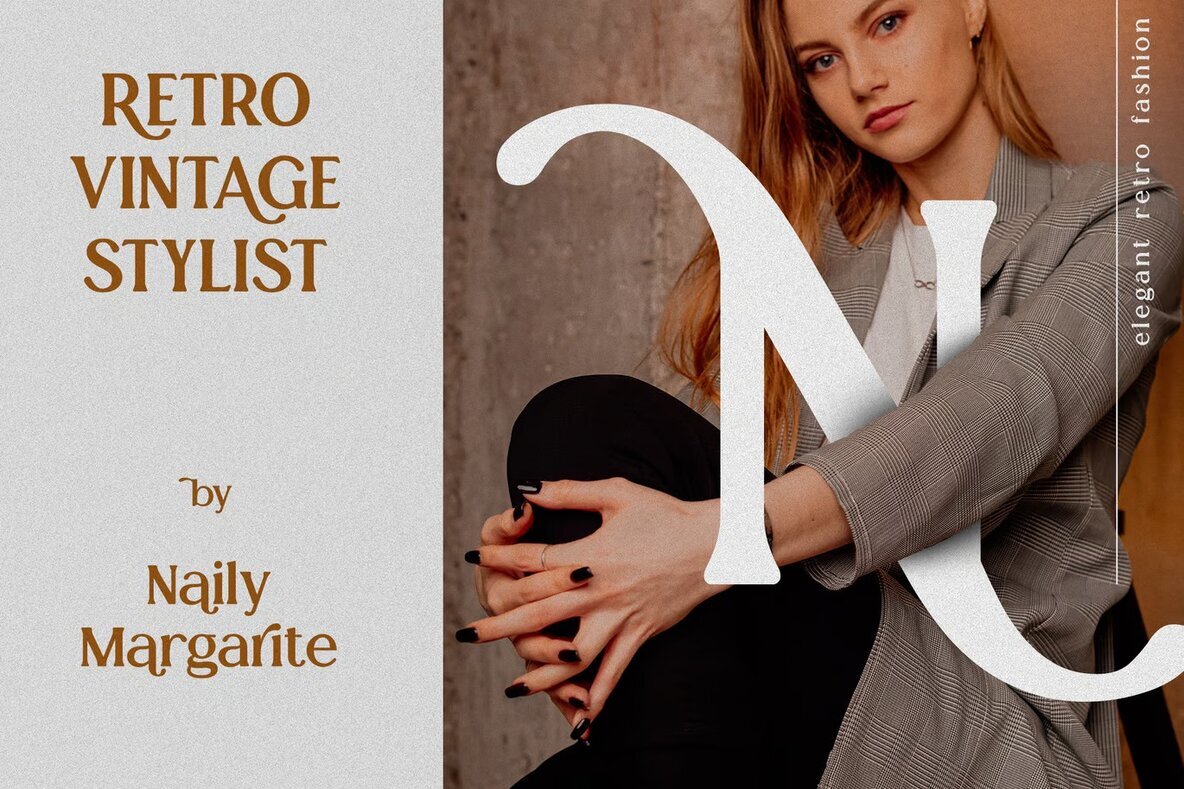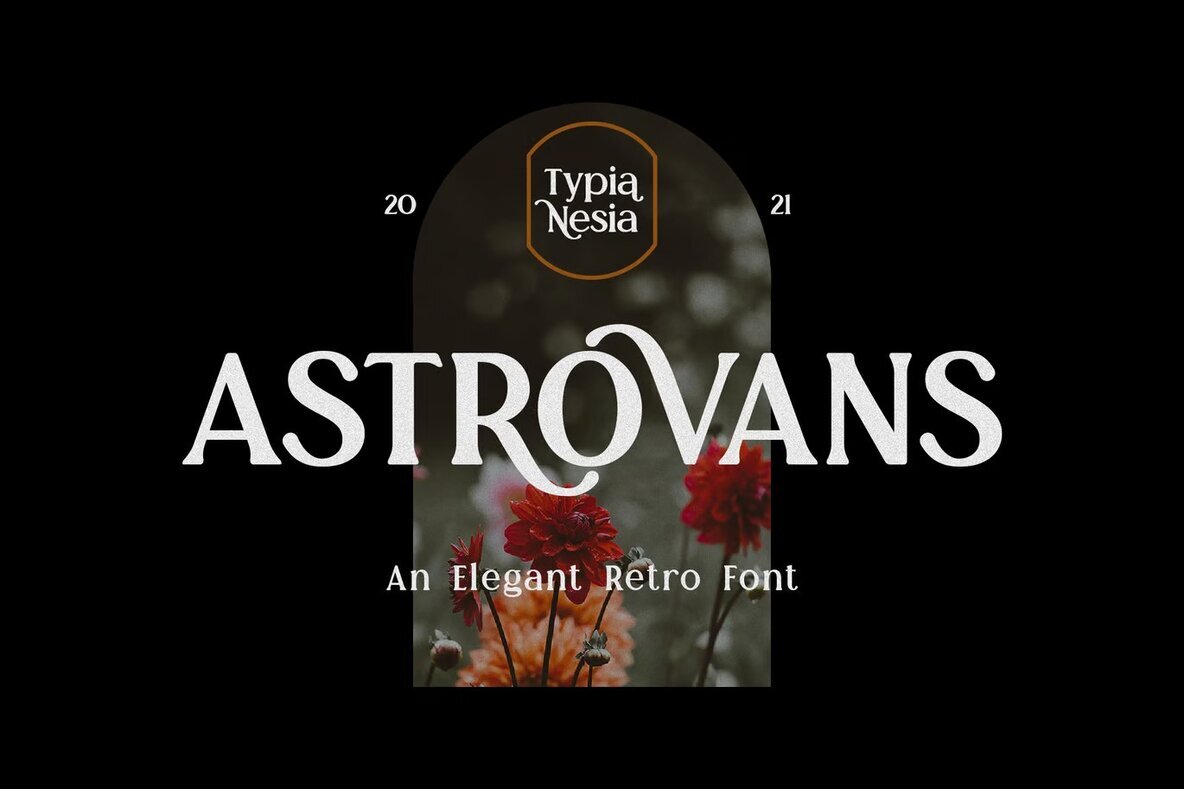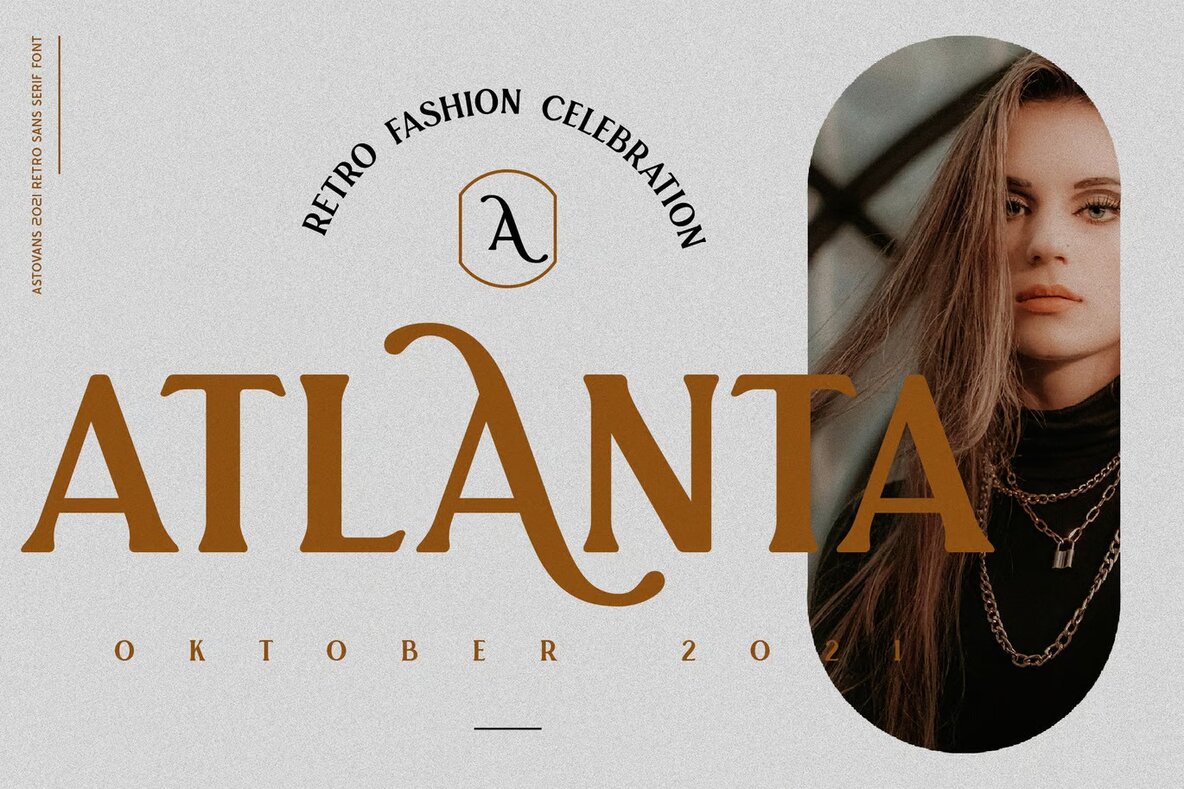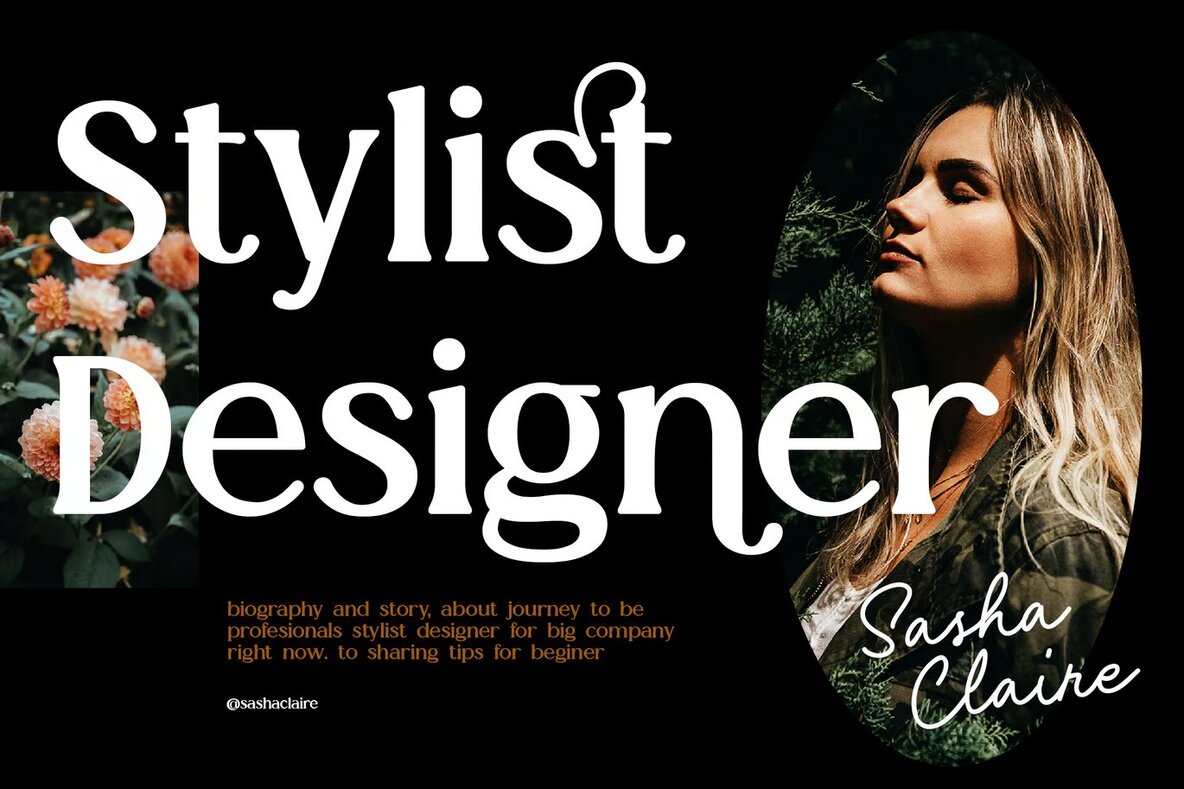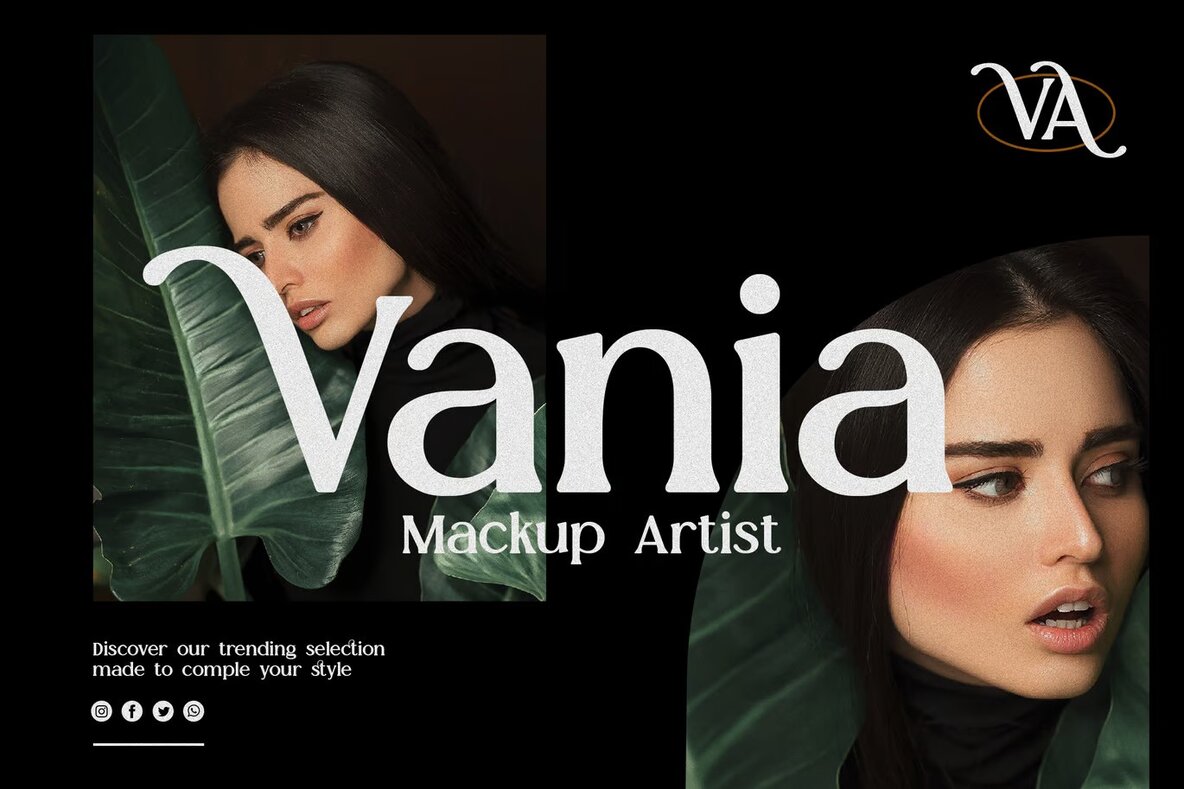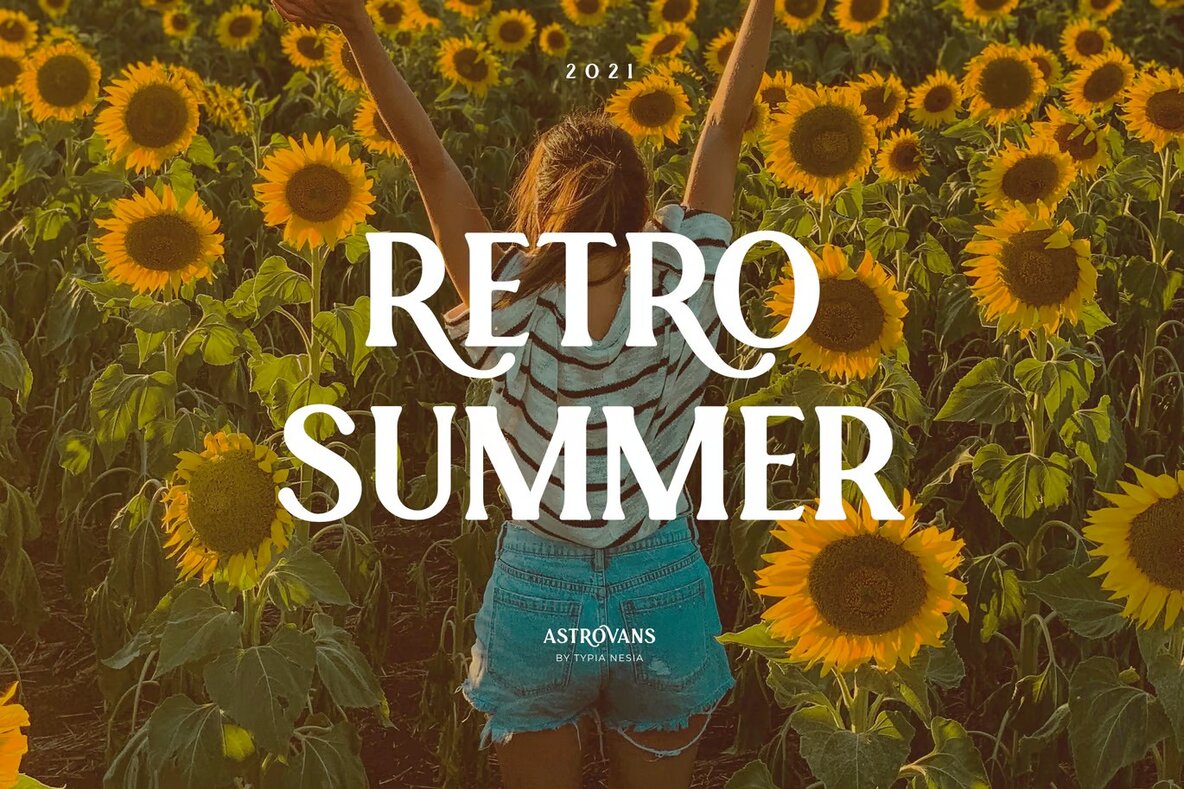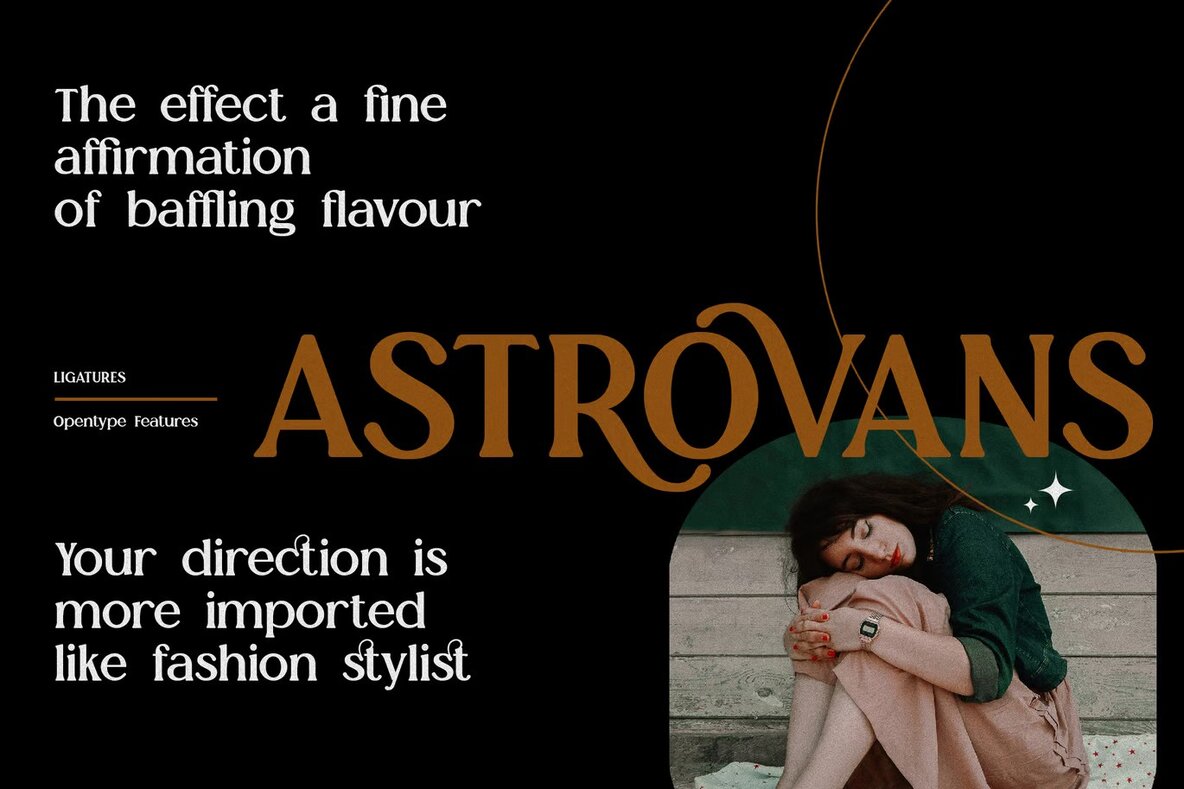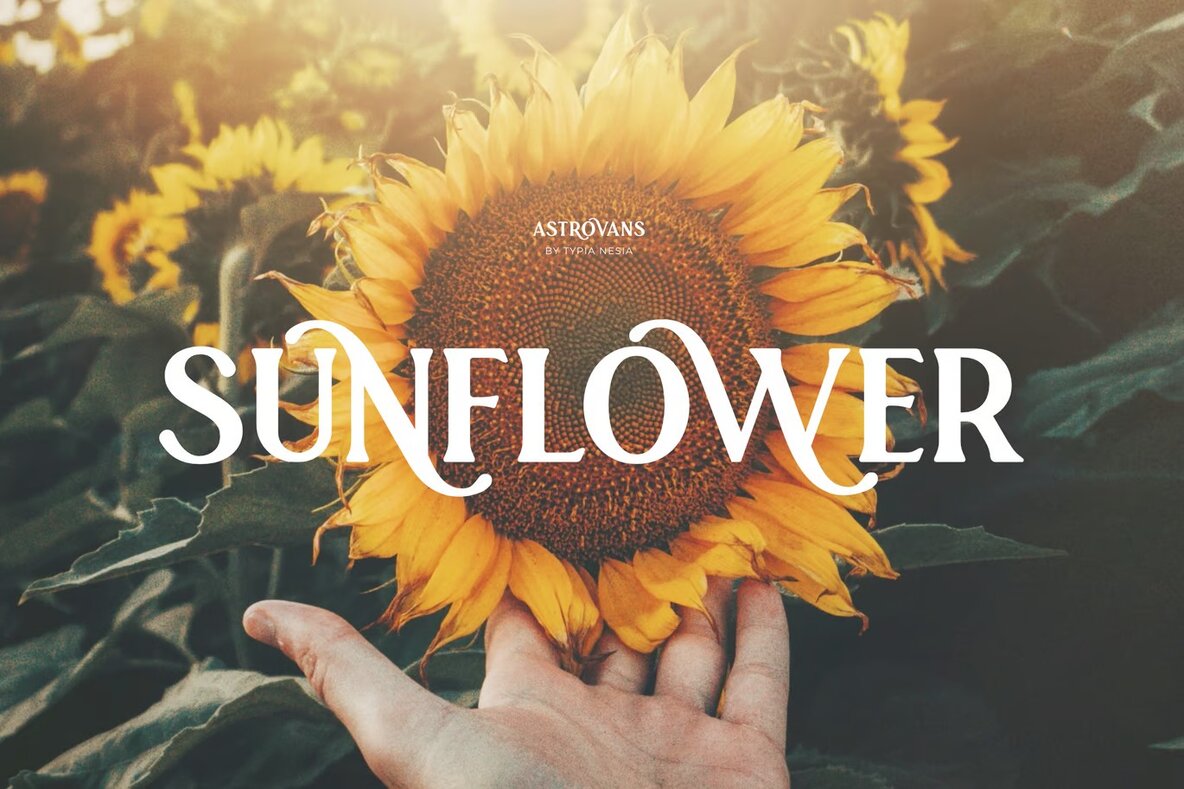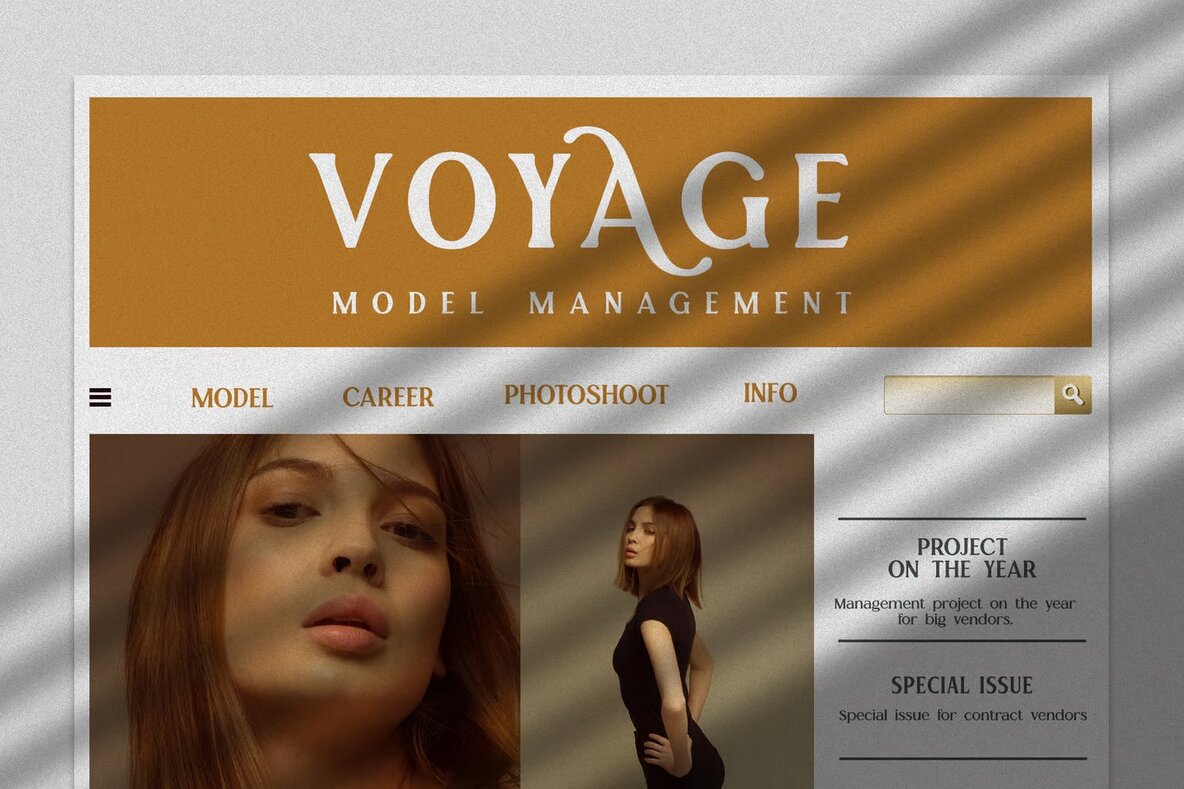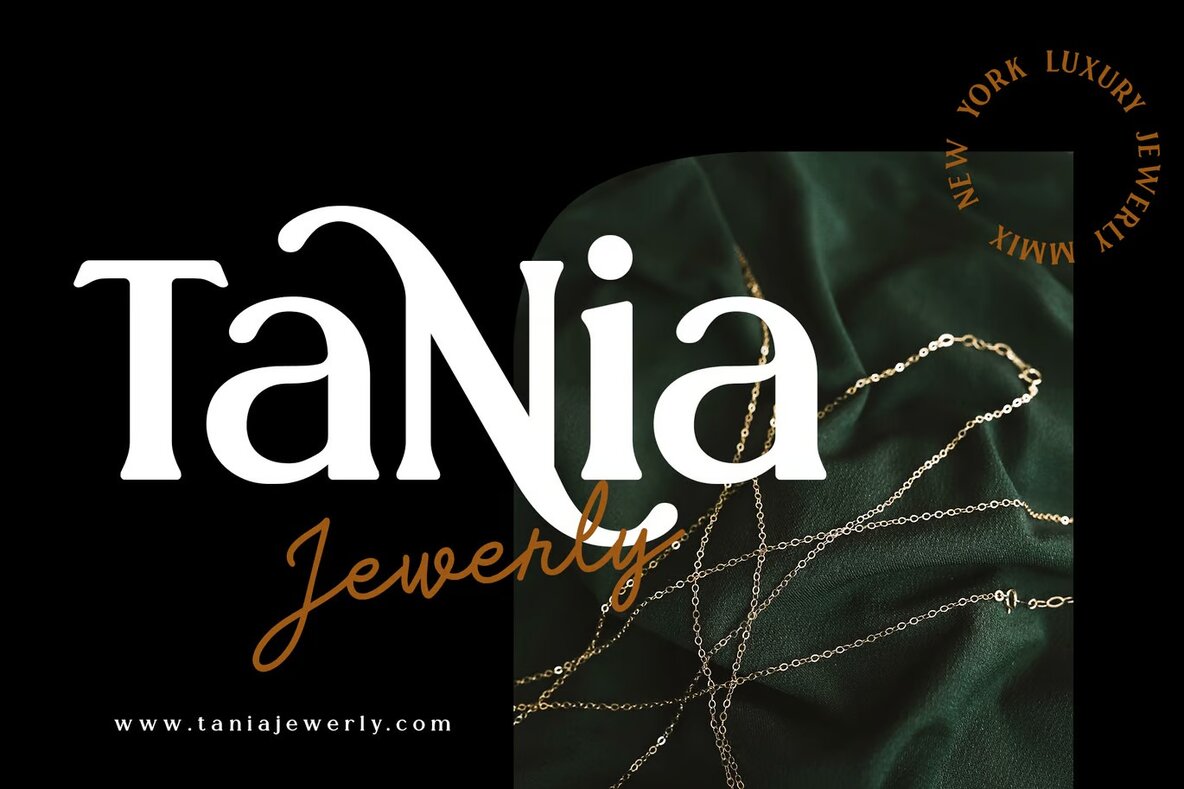
Astrovans Font
Astrovans Regular
Astrovans Serif is an ideal choice for a myriad of design endeavors, adding a touch of vintage charm and timeless elegance to your creations. Its classic yet contemporary style makes it highly versatile for logo branding, adventurous themes, or anything with a jungle or wild aesthetic. Perfect for custom motorcycle or car projects, Astrovans effortlessly integrates into vintage industrial and summer holiday branding, enhancing the visual appeal of editorial and stationery designs.
Incorporate Astrovans into blog design, modern advertising projects, card invitations, and artistic quotes, as it complements home decor and book or cover titles with its retro serif aesthetic. Whether for special events, classic automotive contexts, or hand-lettered classic typography, Astrovans Serif brings a sophisticated flair to your visual communication needs. Its adaptability and innate beauty make it a valuable asset for designers seeking to infuse nostalgia and style into their work.